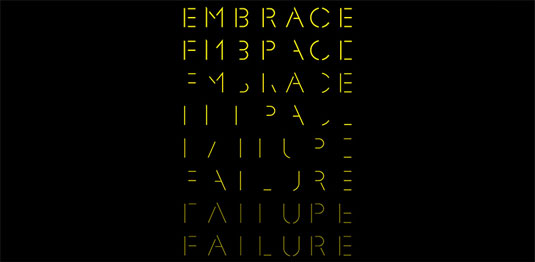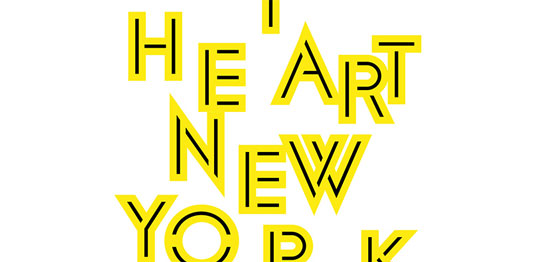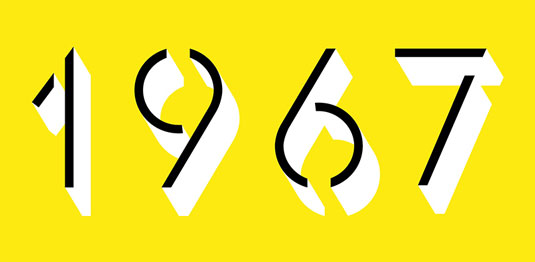
Font of the day: Glaser Stencil
Glaser Stencil by Milton Glaser and Rick Banks
Designed by the world renowned American illustrator and graphic designer, Milton Glaser, Glaser Stencil originally featured on a Camegie Hall poster created by Glaser back in 1967.
The bold weight was digitalised by many, however, the forgotten lighter weights have never been digitalised until now. In agreement with Milton Glaser himself, Glaser Stencil has been officially brought back to life by Rick Banks at Face37.